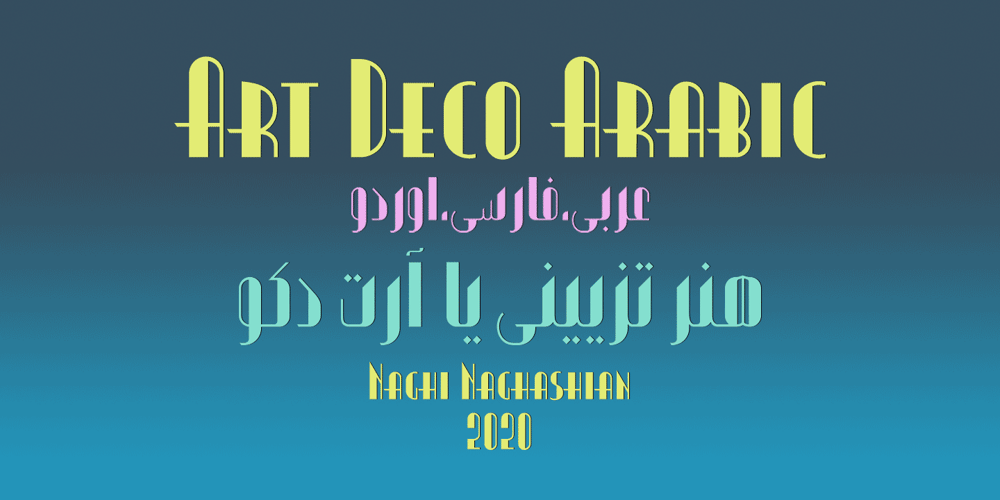
Art Deco Arabic
Art Deco Arabic font
Art Deco Arabic Font Family was designed by Naghi Naghashian and published by Naghi Naghachian. Art Deco Arabic contains 1 styles and family package options. Art Deco Arabic is a sans-serif Headline font. Designed by Naghi Naghashian as a sigle weight. Art Deco Arabic is reminiscence of Art Deco style, at the beginning of 20th century. The Latin part is a new design inspired from Art Deco style. It is extremely legible even in very small size.This font is a contribution to modernisation the Arabic typography, gives the font design of Arabic letters real typographic arrangement und provides more typographic flexibility. Art Deco Arabic supports Arabic, Persian ( Farsi ), Urdu and Latin.It also includes proportional and tabular numerals for the supported languages.Art Deco Arabic design fulfills the following needs:A Explicitly crafted for use in electronic media fulfils the demands of electronic communication. B Suitability for multiple applications. Gives the widest potential acceptability.C Extreme legibility not only in small sizes, but also when the type is filtered or skewed, e.g., in Photoshop, InDesgine or Illustrator. ArtDecoArabic’s simplified forms may be artificial obliqued in InDesign or Illustrator, without any loss in quality for the effected text.D An attractive typographic image. Art Deco Arabic was developed for multiple languages and writing conventions. Art Deco Arabic supports Arabic, Persian,Urdu and Latin. It also includes proportional and tabular numerals for the supported languages.E The highest degree of calligraphic grace and the clarity of geometric typography.